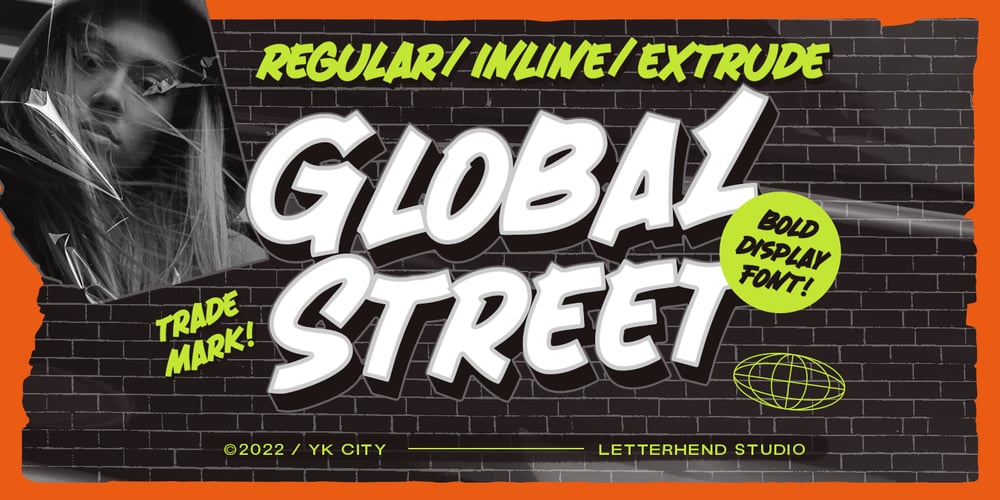
Global Street Font Family was designed by Hendry Juanda and published by Letterhend. Global Street contains 6 styles and family package options. Global Street is a bold font with playful & cartoonish looks. This type of font perfectly made to be applied especially in cartoon or child theme which is need a standout font, and the other various formal forms such as invitations, labels, logos, magazines, books, greeting / wedding cards, packaging, fashion, make up, stationery, novels, labels or any type of advertising purpose.Features : Reguler, inline & extrude version Upercase & lowercase Numbers and punctuation Multilingual Ligatures PUA encoded We highly recommend using a program that supports OpenType features and Glyphs panels like many of Adobe apps and Corel Draw, so you can see and access all Glyph variations.